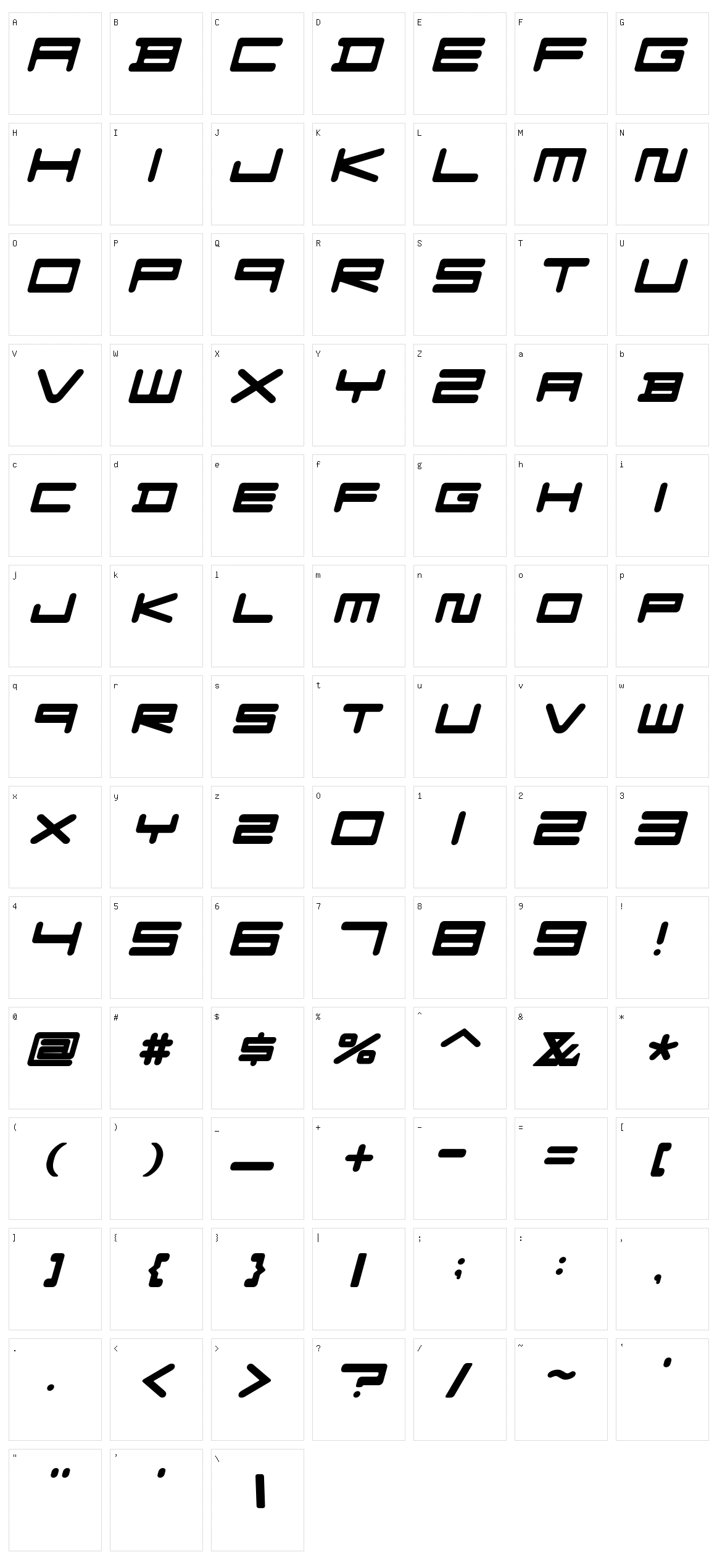
Venue Font
This font was inspired by the font used to display the course venue in the racing game F-Zero GX.
Use CAPSLOCK when typing. Small caps are included for typing in lowercase.
Outline versions are also included.
How to recreate the venue font look:
Choose the F-Zero GX Venue Font-Semi Light Oblique font.
Add a vertical gradient with white (#FFFFFF) at the top blending into cyan (#C6FFFF) at the bottom.
Add an outer stroke.
The stroke layers are made up of 3 layers with the innermost and outermost layers being twice as thick as the center stroke layer.
Each stroke layer also has a separate opacity strength:
First stroke layer color #444444 (40% thickness) (71% opacity)
Second stroke layer color #99AABB (20% thickness) (57% opacity)
Third stroke layer color #224455 (40% thickness) (43% opacity)
Menu Font
This font was inspired by the font used in various places in the menu titles.
Several alternate lowercase letterforms are included for the Menu Font: a, b, e, g, h, i, j, k, n, r, v, y, z